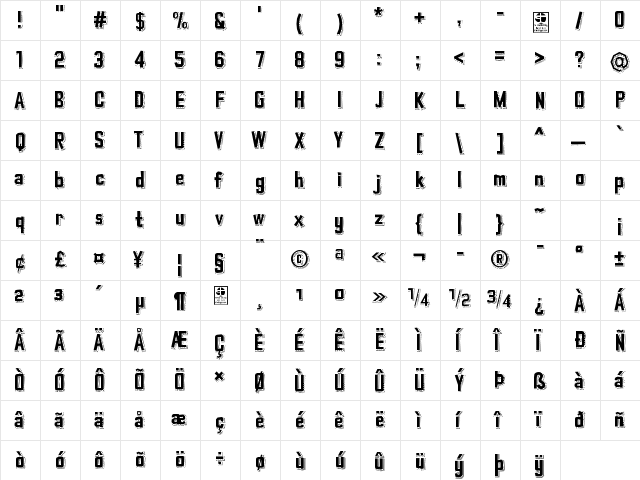
Typo Cut-Out Striped Demo Regular
| Foundry | StudioTypo |
| Designer | Mehmet Abac |
Design Context for Typo Cut-Out Striped Demo Typeface
Typo Cut-Out Striped Demo offers clean, dependable letterforms without strong stylistic allegiance, making it a practical choice for designers who need flexibility.